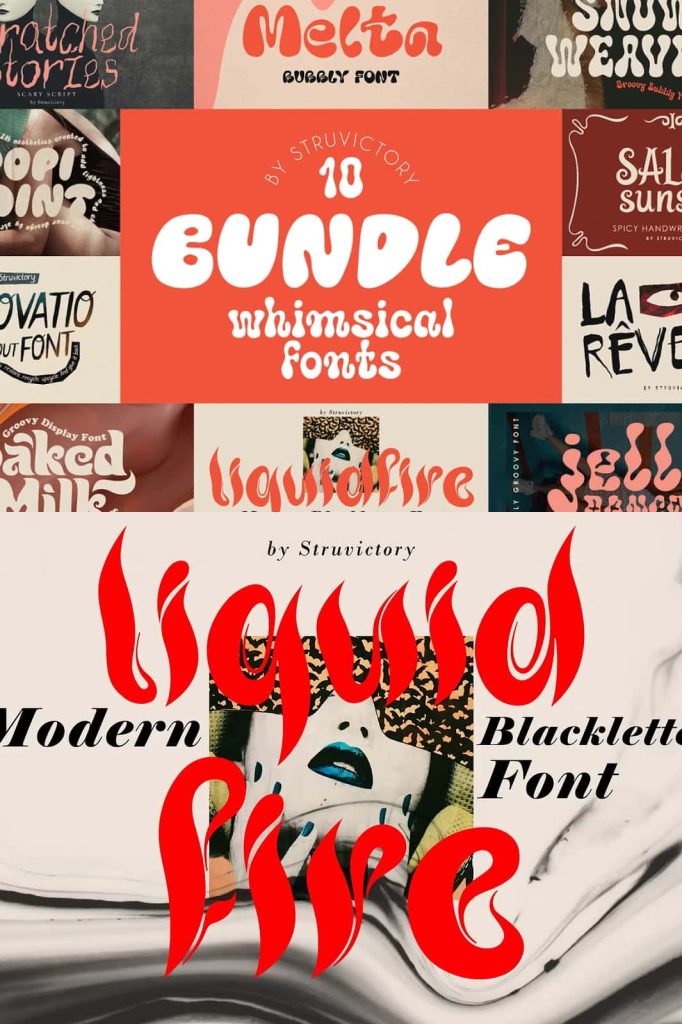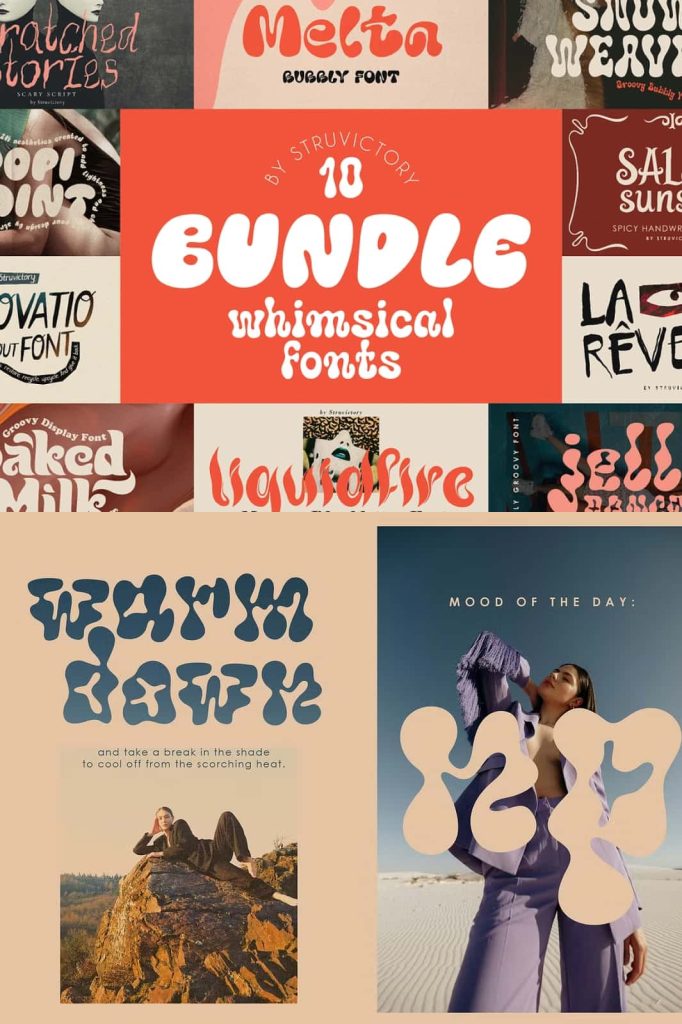
Revamp your design with our unique bundle of 10 whimsical fonts! This set features a variety of handwritten, bubbly, groovy, and y2k fonts, created with love to emphasize the uniqueness of your brand.